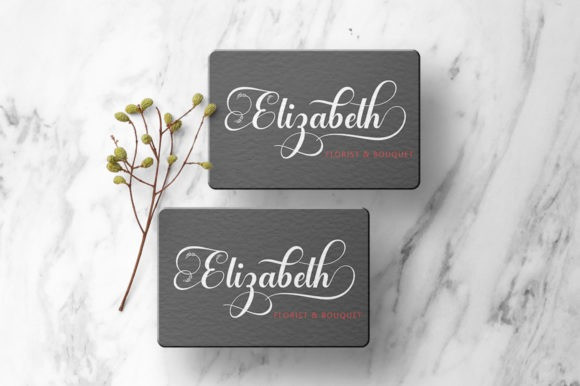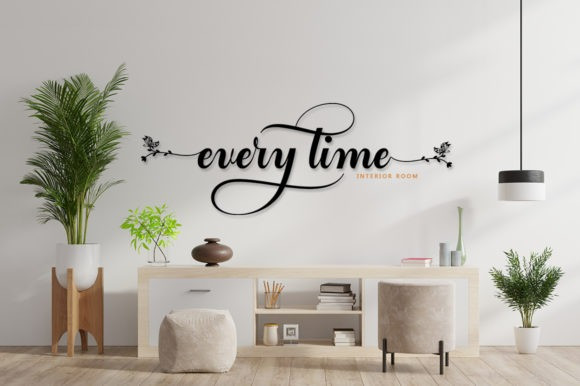
Faithfull Font
Faithfull Calligraphy Font is a stunning handwritten font. Fall in love with its incredibly versatile style and use it to create gorgeous wedding invitations, beautiful stationary art, eye-catching social media posts, and much more!